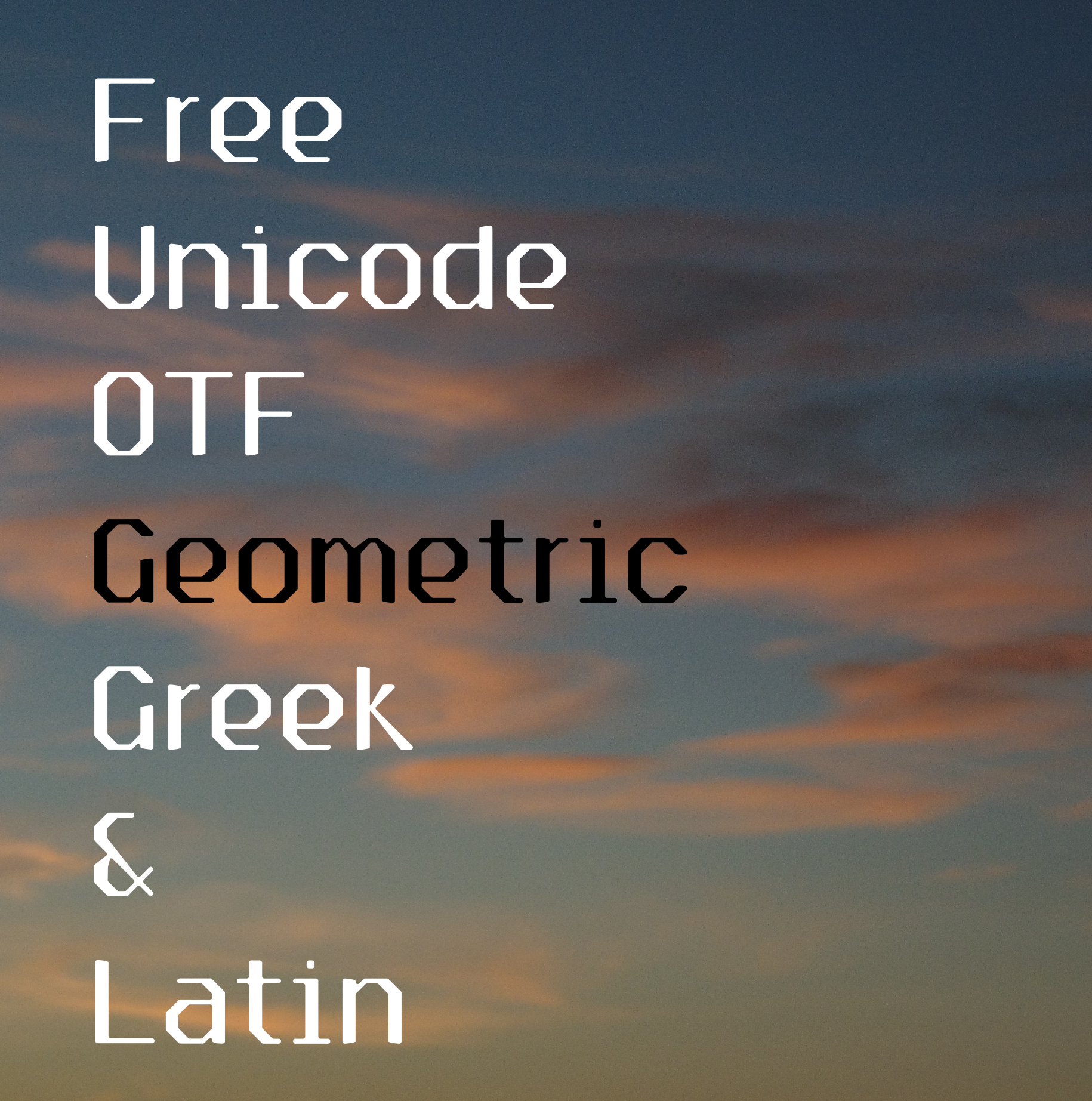
PVF Cookies is a Geometric Ditone Monospace typeface including Greek, Latin, numbers, and symbols in 3 weights: Light, Regular, Bold + Italics. As it appears it has a blocky digital appearance and that makes it a futuristic one. It has also a slight roundness and higher x-height than a mid-size which makes it a bit more commercial and not so friendly.